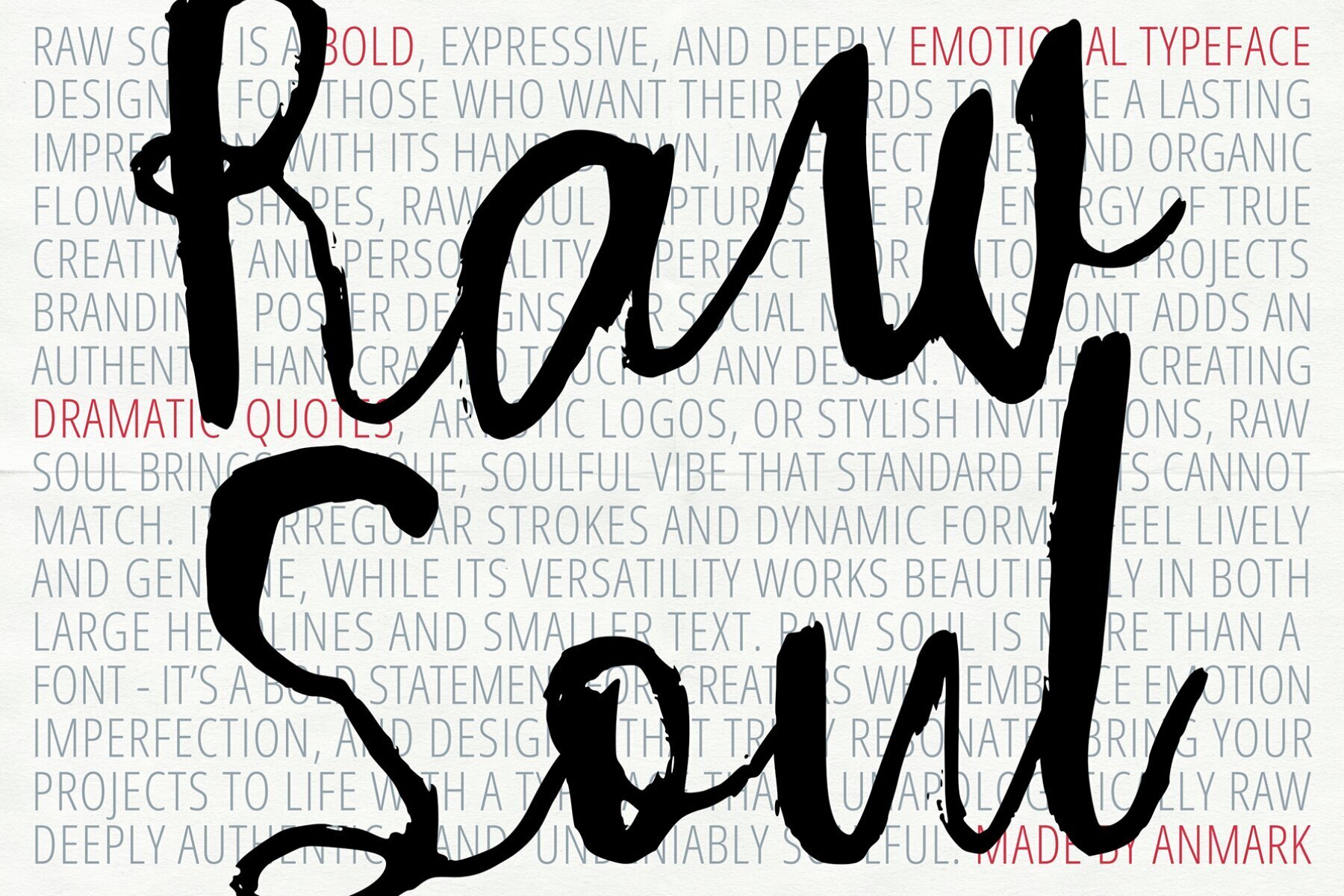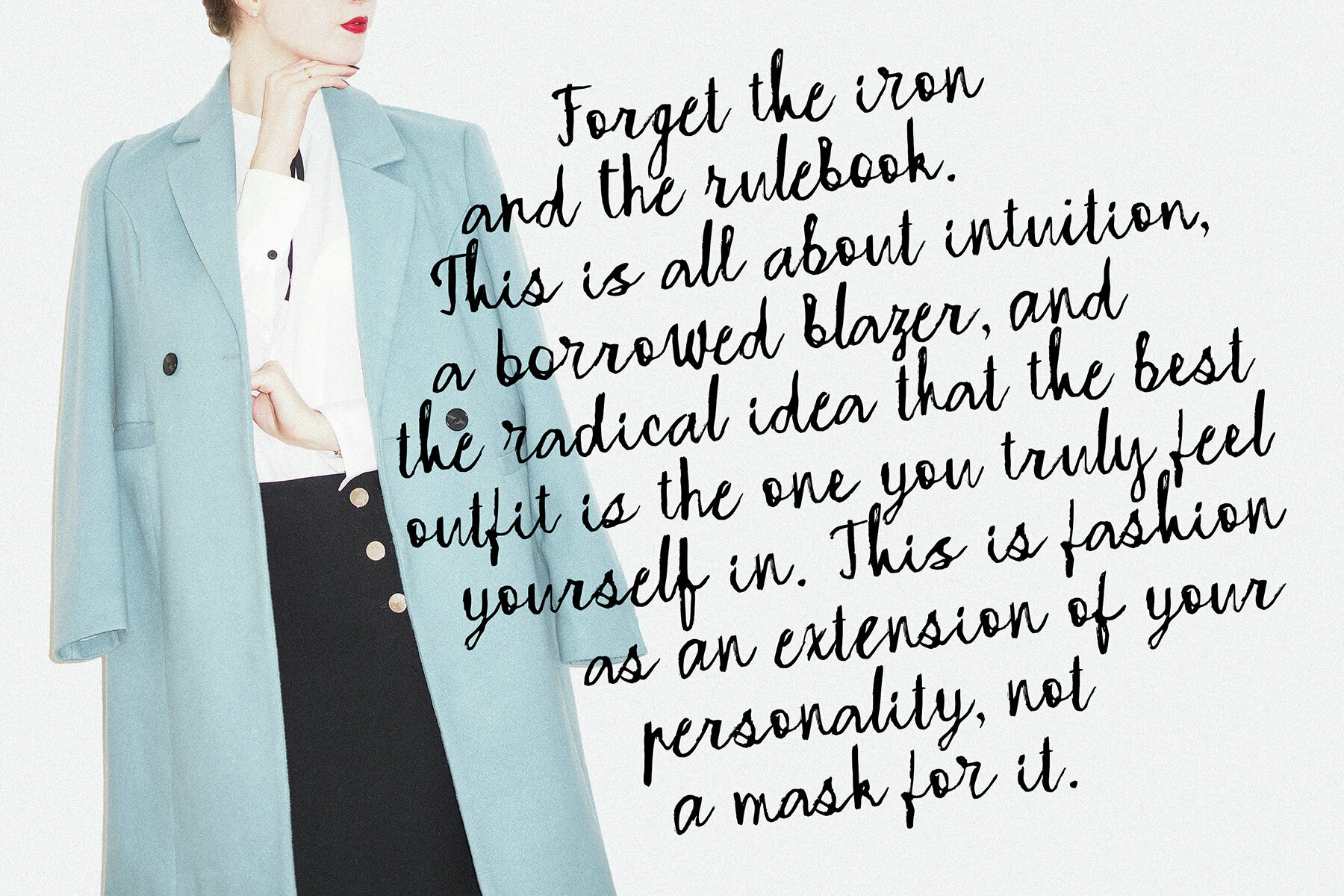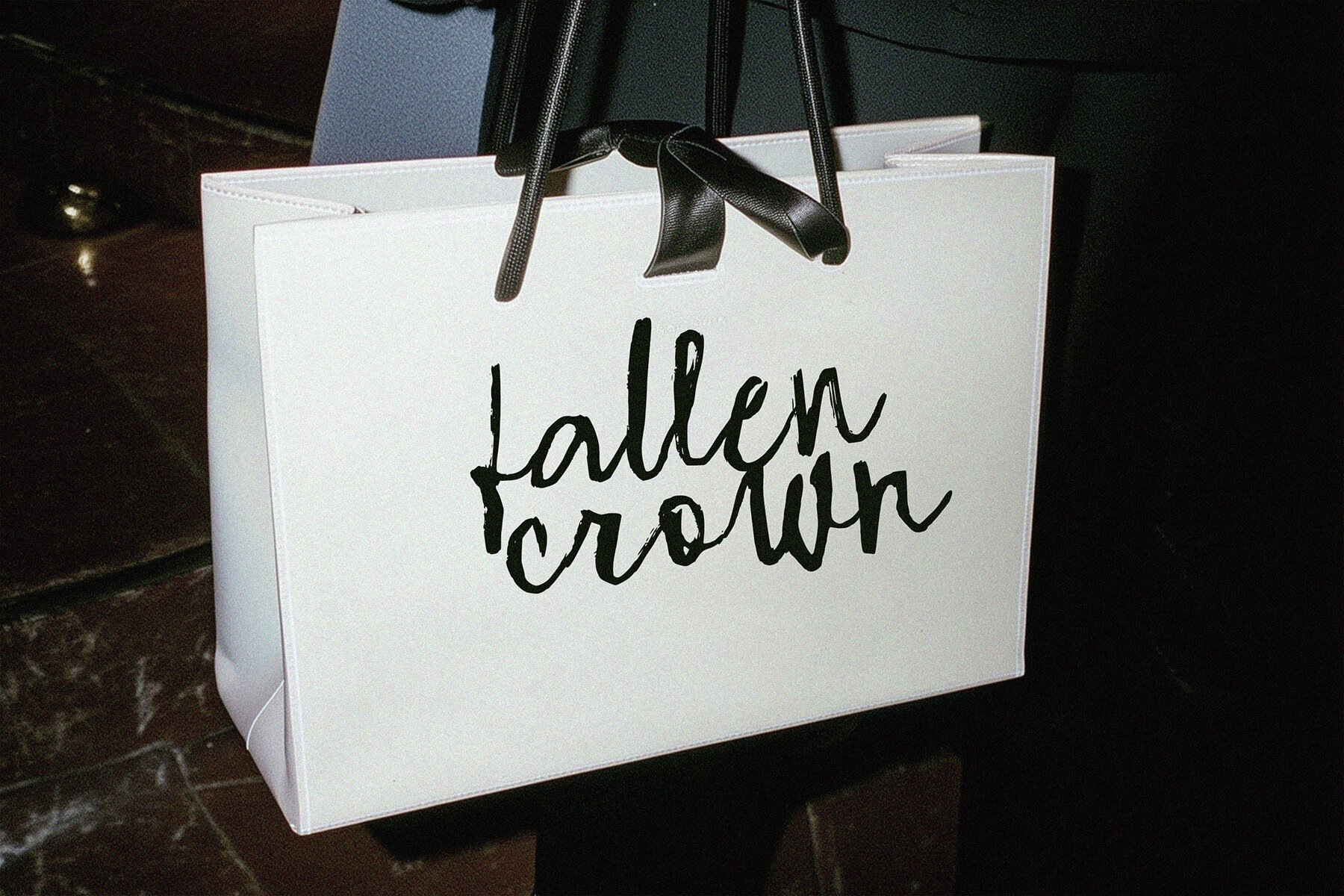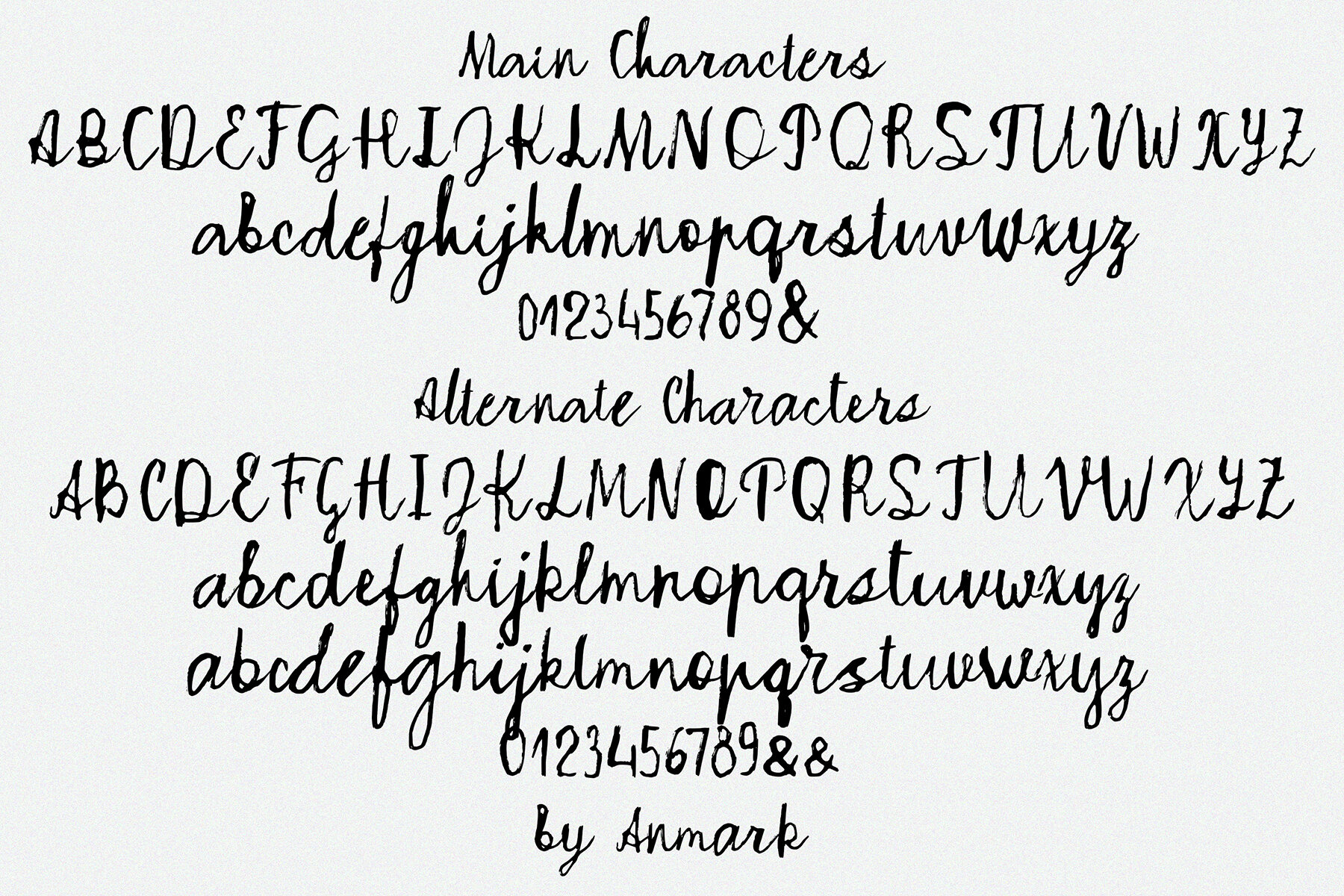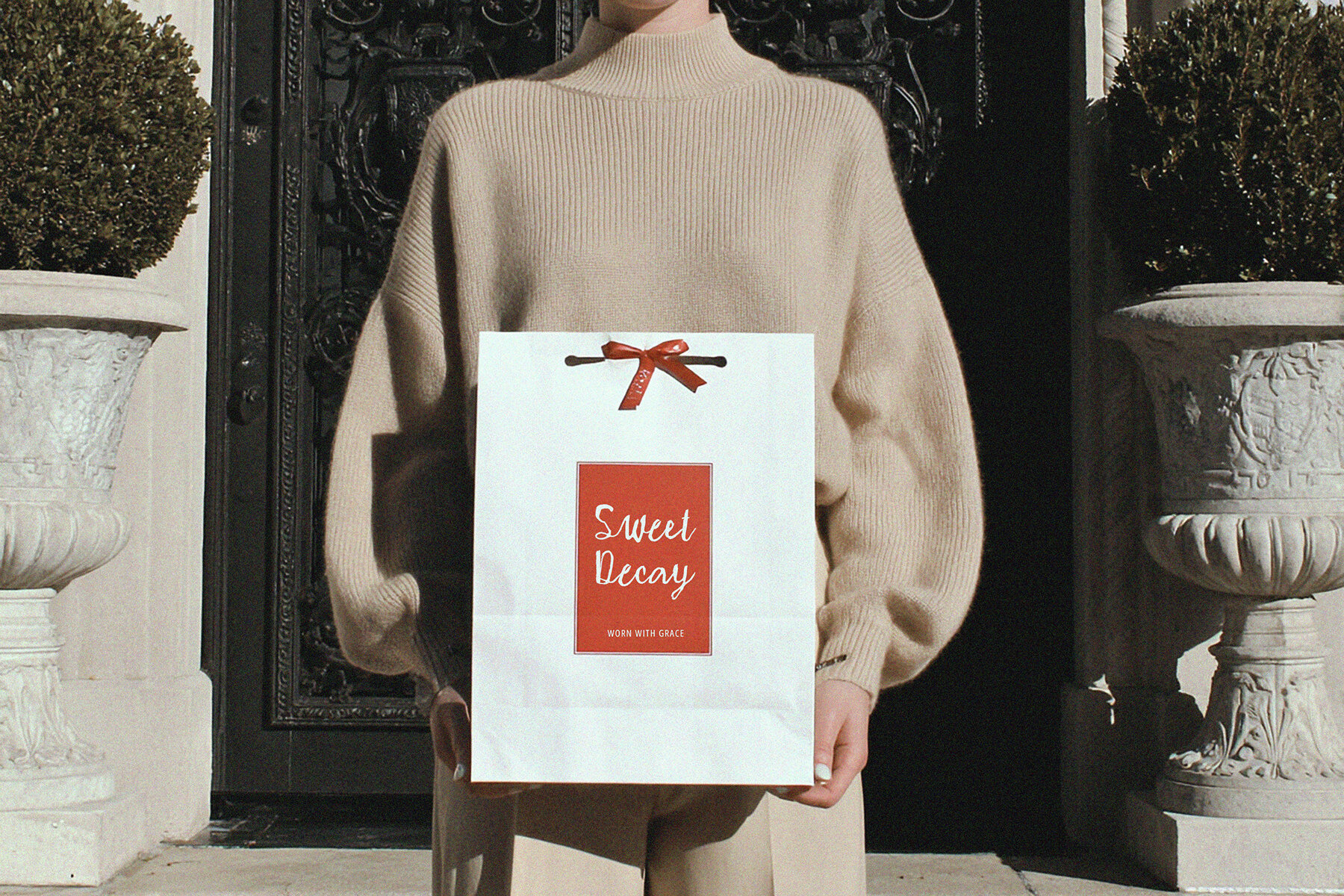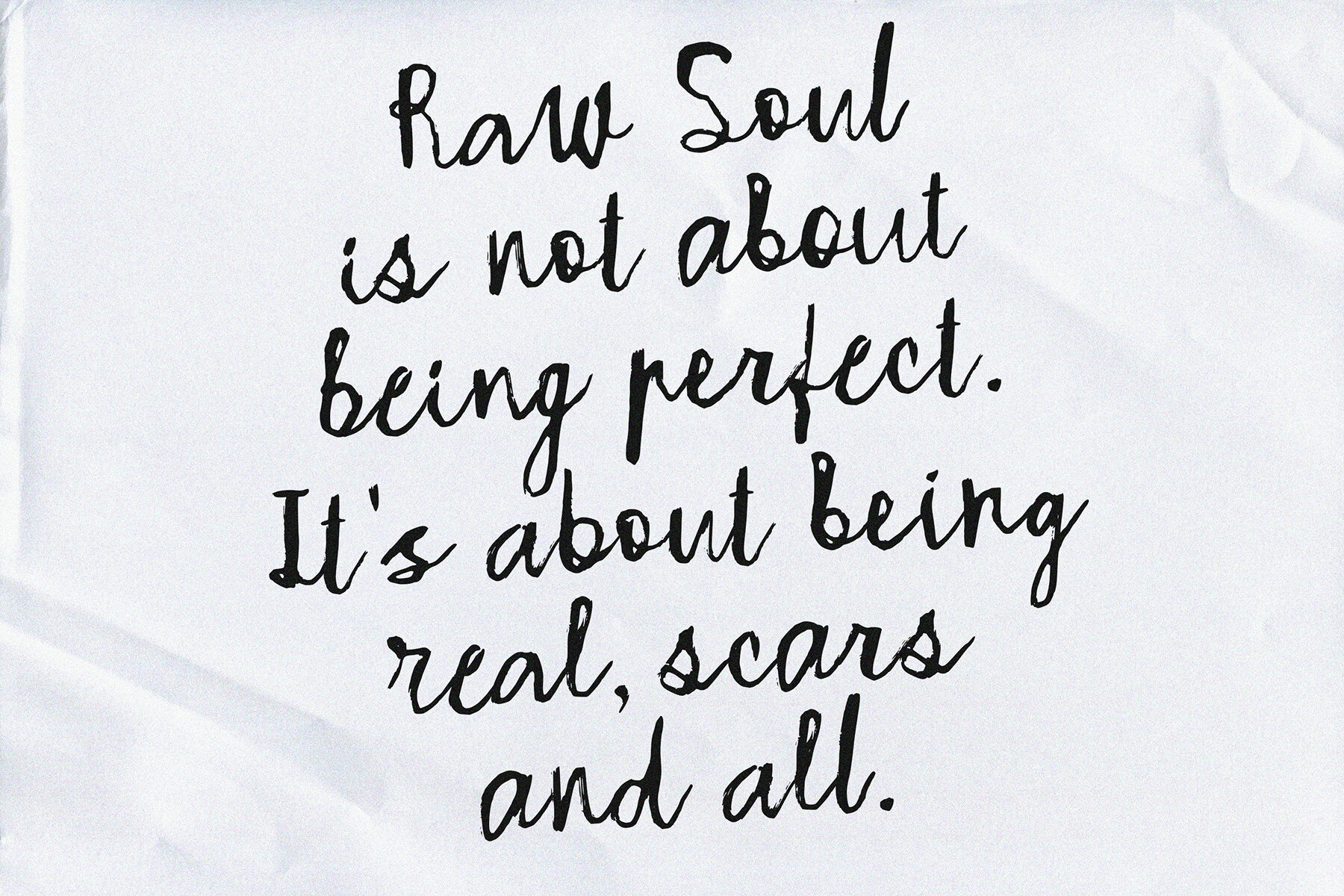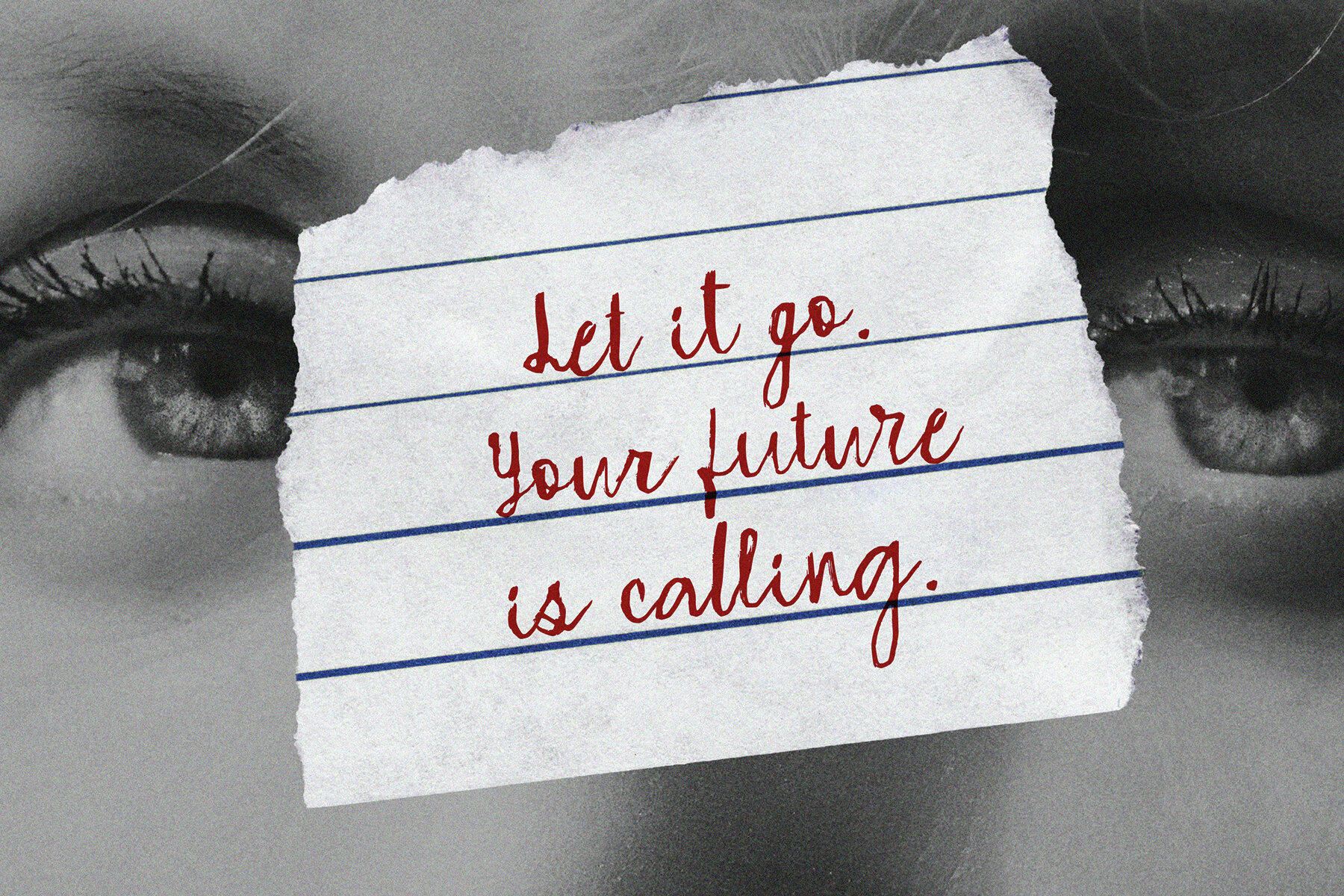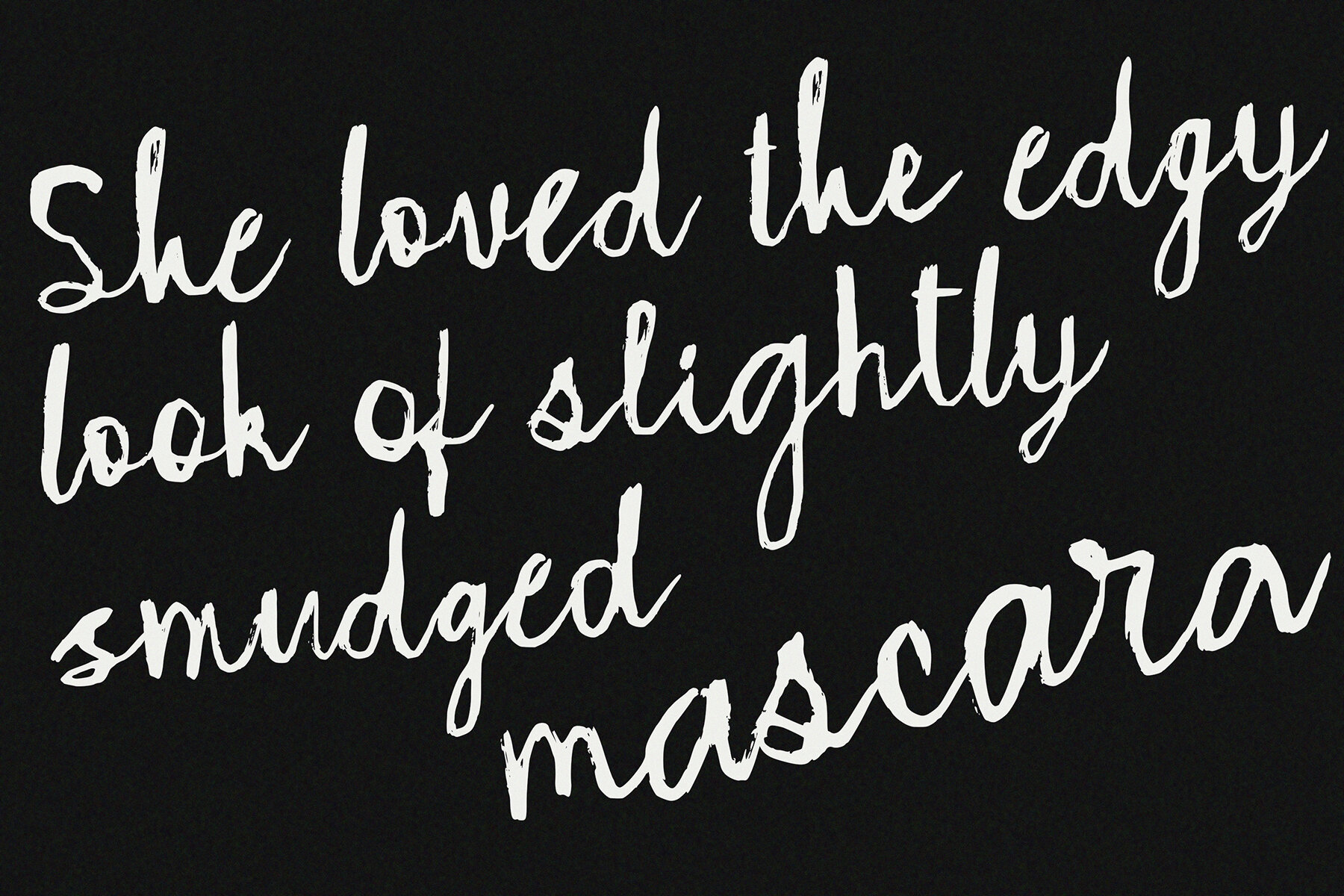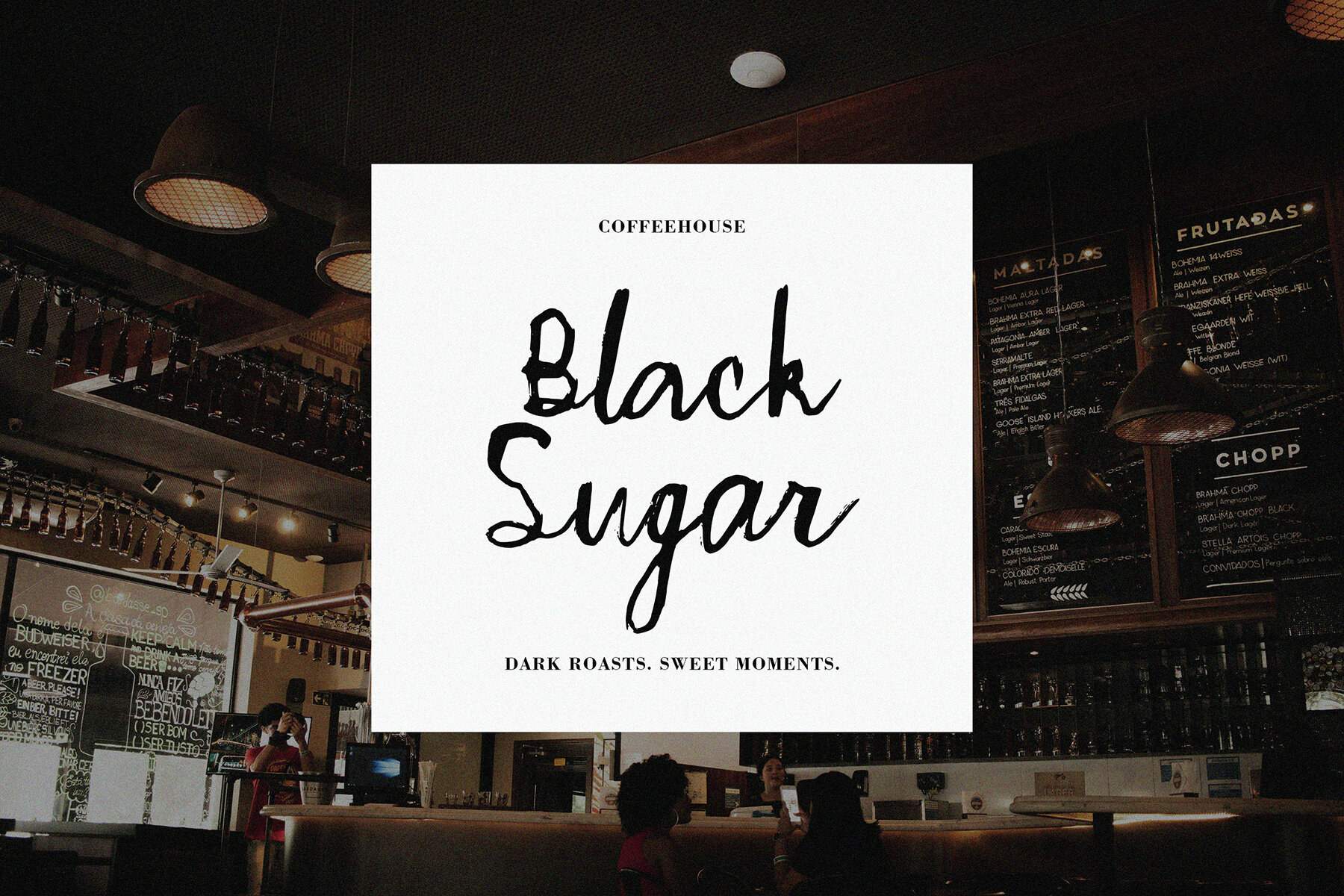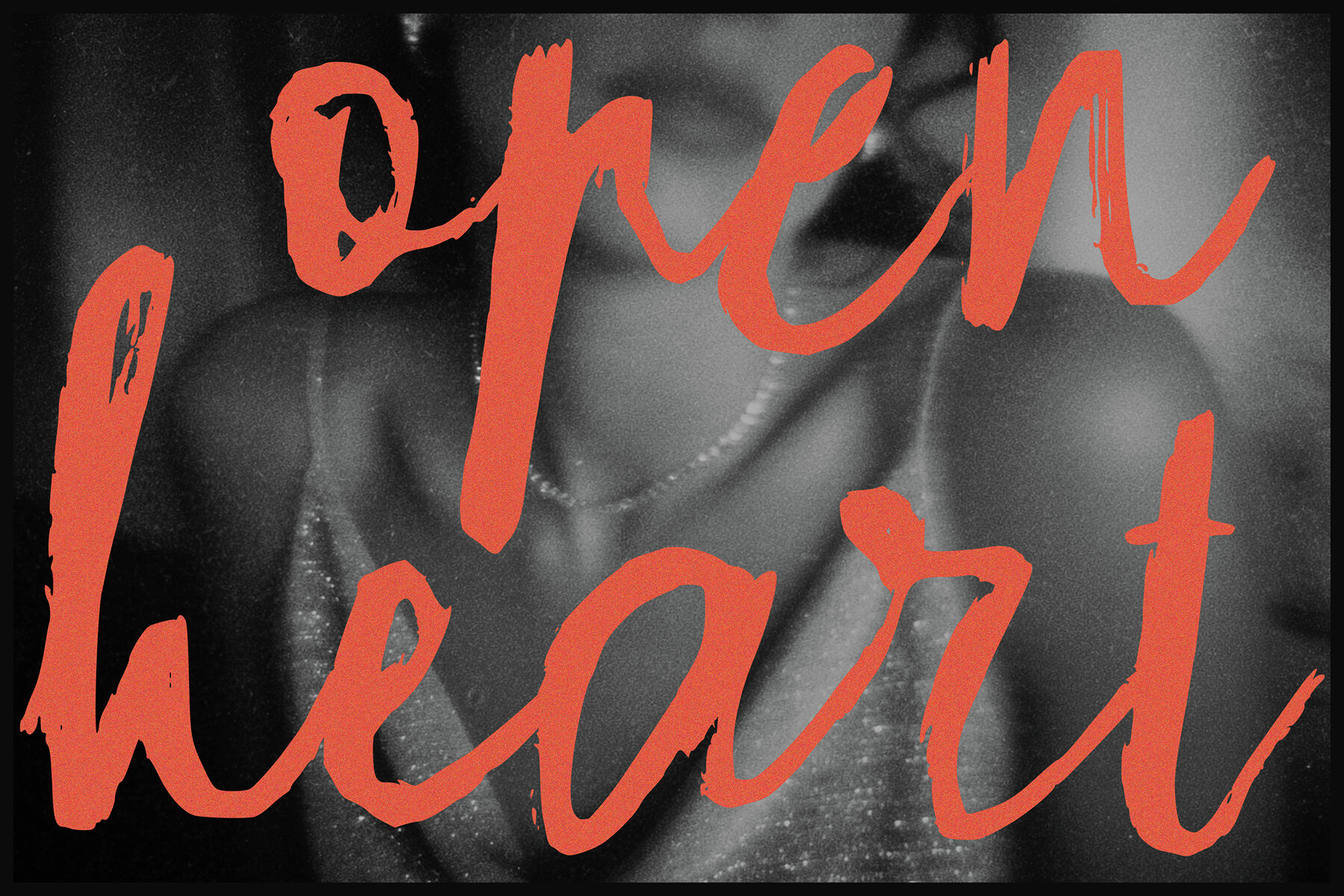
Raw Soul Font
Raw Soul
Raw Soul embodies the essence of a hand-drawn aesthetic, ideal for projects that demand a touch of unrefined elegance. Perfect for fashion branding, editorial design, and social media, this font captivates with its unstructured charm. Ideal for: Fashion branding, creative packaging, social media, magazine layouts, distinctive headlines, logos, wedding stationery, posters, quotes, and any project that craves a daring yet feminine script.Raw Soul: The Artistic Script for Fashion and Media